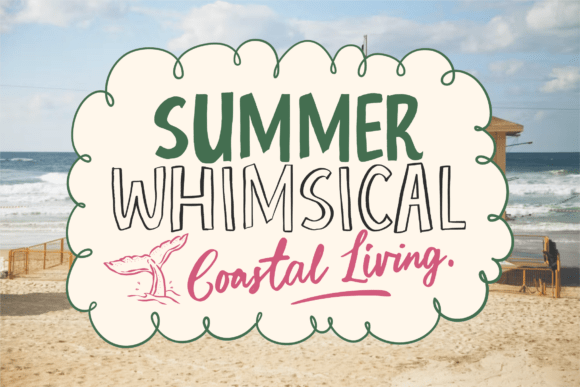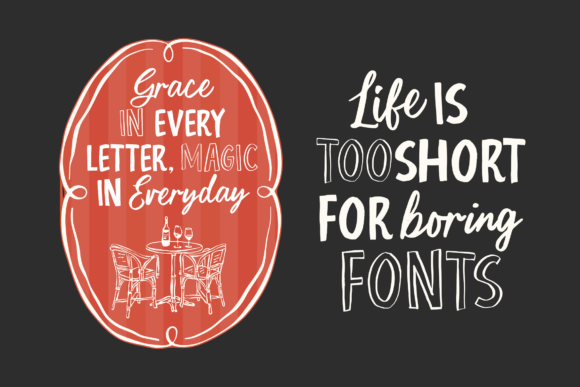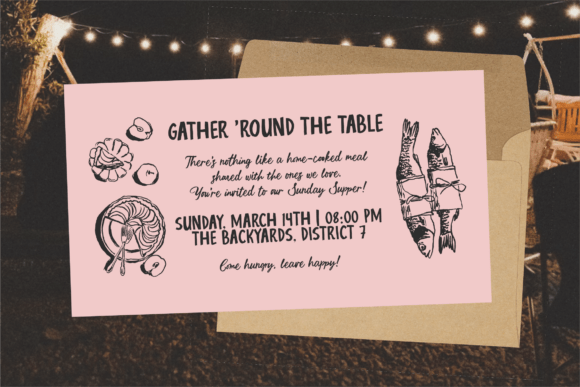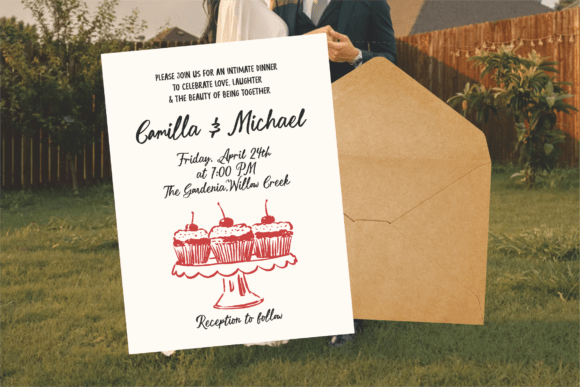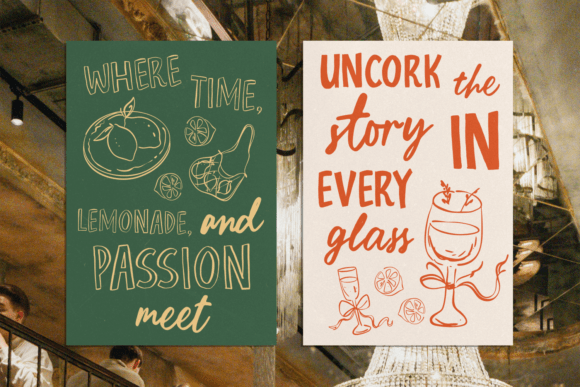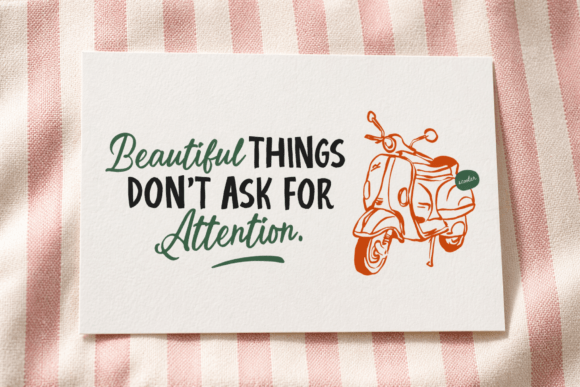
Introduction to Perfect Relationship Font
Have you ever stared at a blank design canvas, desperate for the perfect font to bring your creative vision to life? I know I have. The struggle is real, especially when you’re working on a high-quality design project that requires a certain level of sophistication and charm. That’s why I’m excited to introduce you to the Perfect Relationship Font, a delightful handwritten font duo that’s about to become your new design BFF.
As a valuable design resource, the Perfect Relationship Font is a must-have for any creative project that requires a personal touch. With its smooth handwritten script and clean sans serif, you’ll be able to create designs that feel warm, authentic, and professional – all at once. Plus, the transparent background and free download make it a hassle-free addition to your design collection.
Key Features of Perfect Relationship Font
- High-quality design resource ideal for creative projects, posters, and digital artwork.
- Includes 6 unique font styles with matching icons, perfect for expressing love and affection.
- Includes 6 different font sizes and resolutions, suitable for a variety of applications.
- Designed to be versatile and easy to use, making it a great addition to any design project.
- Perfect for expressing emotions and sentiments in creative projects, social media graphics, and more.
Honest Review: Perfect Relationship Font
I recently had the chance to work with the Perfect Relationship Font, and I must say it’s been an interesting experience. As a designer, I’m always on the lookout for high-quality design resources that can elevate my creative projects.
One of the things that works well with this font is its versatility. It comes in a variety of styles and weights, making it suitable for a range of applications, from romantic quotes to wedding invitations. I also appreciate the transparent background, which makes it easy to customize and integrate into my designs.
Here are some of the features that stood out to me:
- High-quality design with a unique aesthetic
- Suitable for various creative projects
However, there are some limitations to consider. ⚠️ The font may not be as readable at small sizes, and the weight options can be a bit inconsistent. Additionally, the free download option only allows for personal use, which may be a drawback for designers working on commercial projects.
Overall, I think the Perfect Relationship Font is a solid choice for designers looking for a unique and customizable font. While it’s not perfect, it’s a great addition to any design arsenal.
Perfect Relationship Font
The Perfect Relationship Font is a high-quality design resource that can elevate your creative project. With a transparent background, this font is perfect for adding a touch of romance to your designs.
To get the most out of the Perfect Relationship Font, use it in combination with other design elements, such as heart-shaped icons or floral patterns. You can also experiment with different font sizes and colors to create a unique look.
The Perfect Relationship Font is perfect for:
- Valentine’s Day cards and invitations
- Wedding stationery and decorations
- Love-themed social media graphics and ads
The Great Vibes Font is a high-quality, elegant script font perfect for creating a romantic atmosphere in your design project. It features a transparent background and is ideal for wedding invitations, love quotes, and other creative projects. When to use: For a touch of sophistication and elegance in your design. How it compares to Perfect Relationship Font: While both fonts have a romantic feel, Great Vibes Font is more refined and suitable for formal events.
The Alex Brush Font is a beautiful, handwritten font that exudes a sense of love and connection. It’s perfect for designers looking for a unique, high-quality font to add a personal touch to their creative project. When to use: For a personal, handwritten feel in your design. How it compares to Perfect Relationship Font: Alex Brush Font has a more organic, handwritten look compared to Perfect Relationship Font, which is more polished and refined.
Can I use the Perfect Relationship Font with a transparent background?
Yes, the Perfect Relationship Font supports transparent backgrounds, making it perfect for creative projects that require a seamless integration with other design elements. Simply use the font with a transparent background in your design software, and you’ll be able to achieve a beautiful, high-quality result.